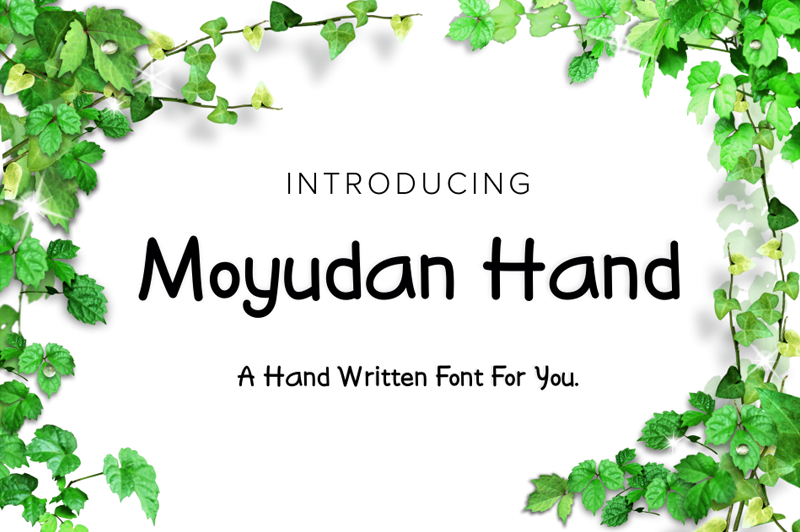
Preview and download Moyudan Font. Created by Dian Haniffan Hadi in Script Handwritten styles with Demo license.
The Moyudan Hand is a beautiful Hand written. Its perfect for adding a Notes, Quotes, invitations, covers, and much more! LINK TO PURCHASE COMMERCIAL LICENSE: https://www.creativefabrica.com/designer/beary-beary/ My website : https://www.bearydsgn.com/ |